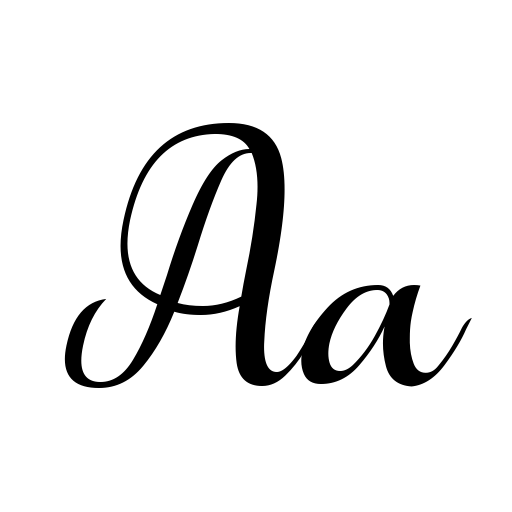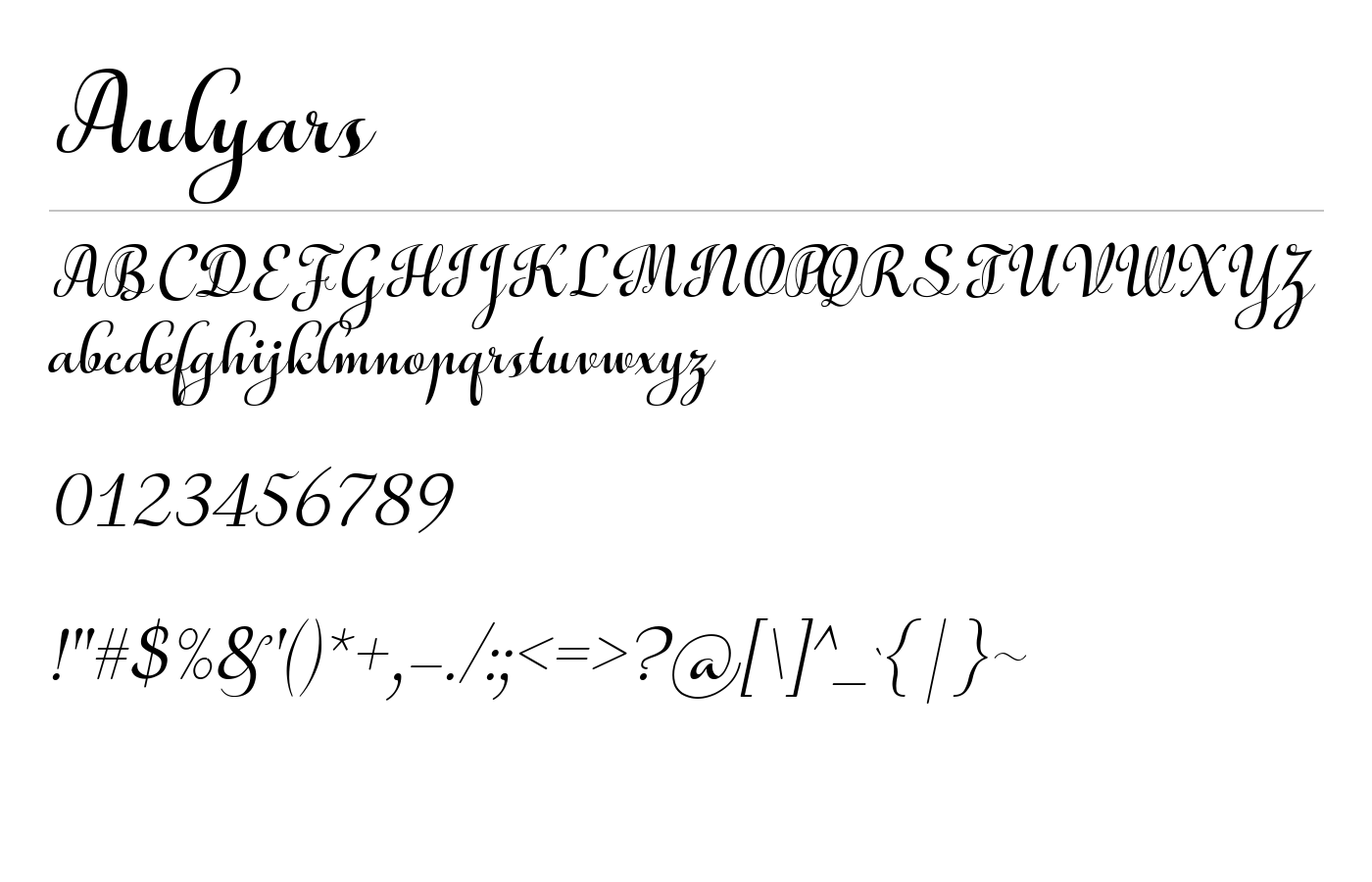
Aulyars is an elegant script font characterized by its flowing, calligraphic strokes and fine contrast between thick and thin lines. Its refined curves and graceful letterforms lend a sophisticated and timeless feel, making it ideal for luxury branding, invitations, and stylish headlines where a touch of classic beauty is desired. This font shines in contexts that call for elegance and a personal, handcrafted look.
Aulyars Font